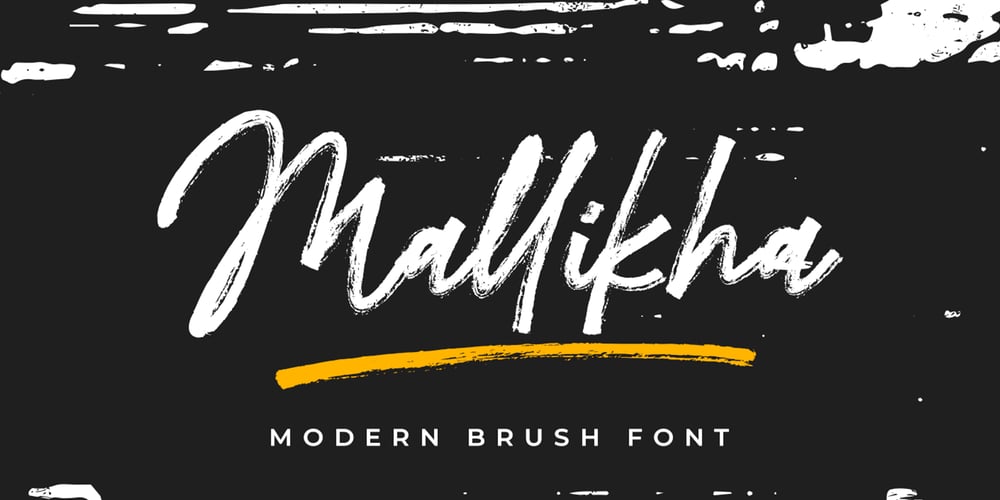
Mallikha Brush Font Family was designed by khaidir and published by Gatype. Mallikha Brush contains 1 styles and family package options. Mallikha Brush is a luxurious, handbrushed typeface with an authentic and casual feel. It would be perfect to use for Branding, Logo Design, Lettering, Logo Type, Clothing, Posters, magazines, packaging, posters, shopping bags, t-shirts, book covers, photography, special events and other design projects.Feature :Uppercase & LowercaseNumberI hope you enjoy this font. If you have any questions feel free to message me :)Best, Gatype